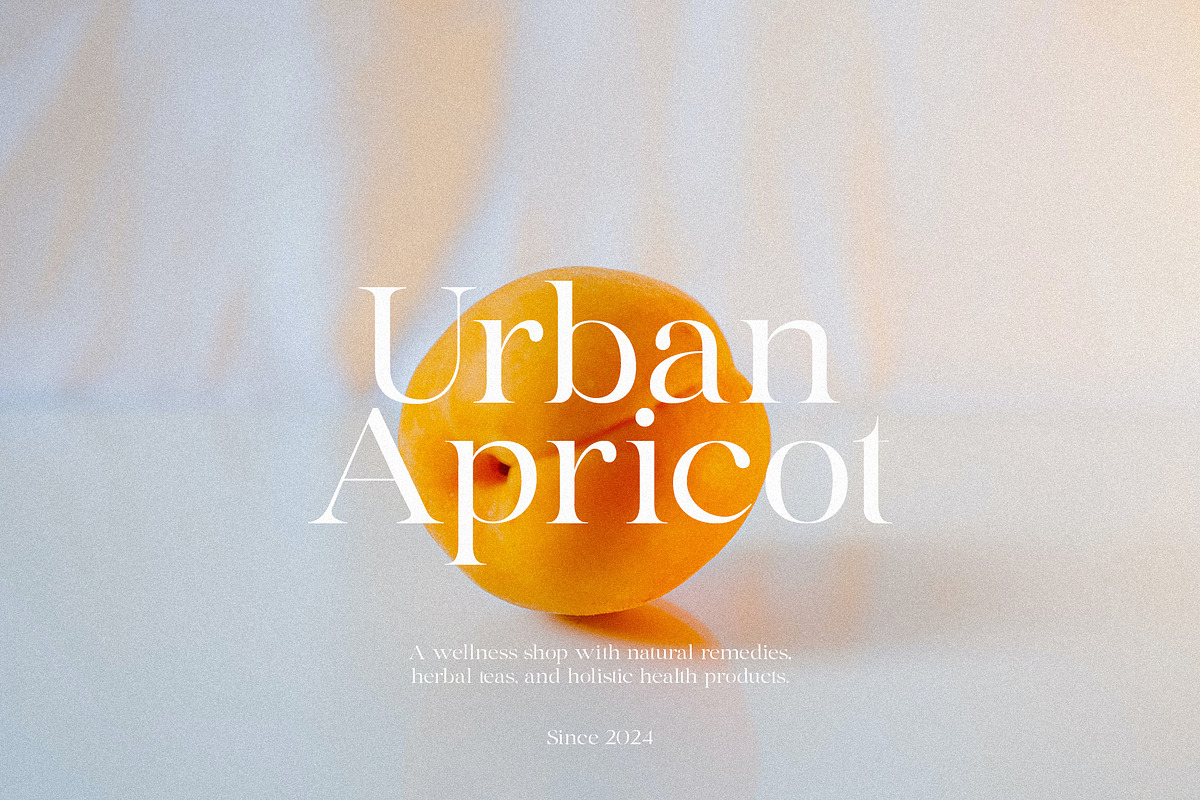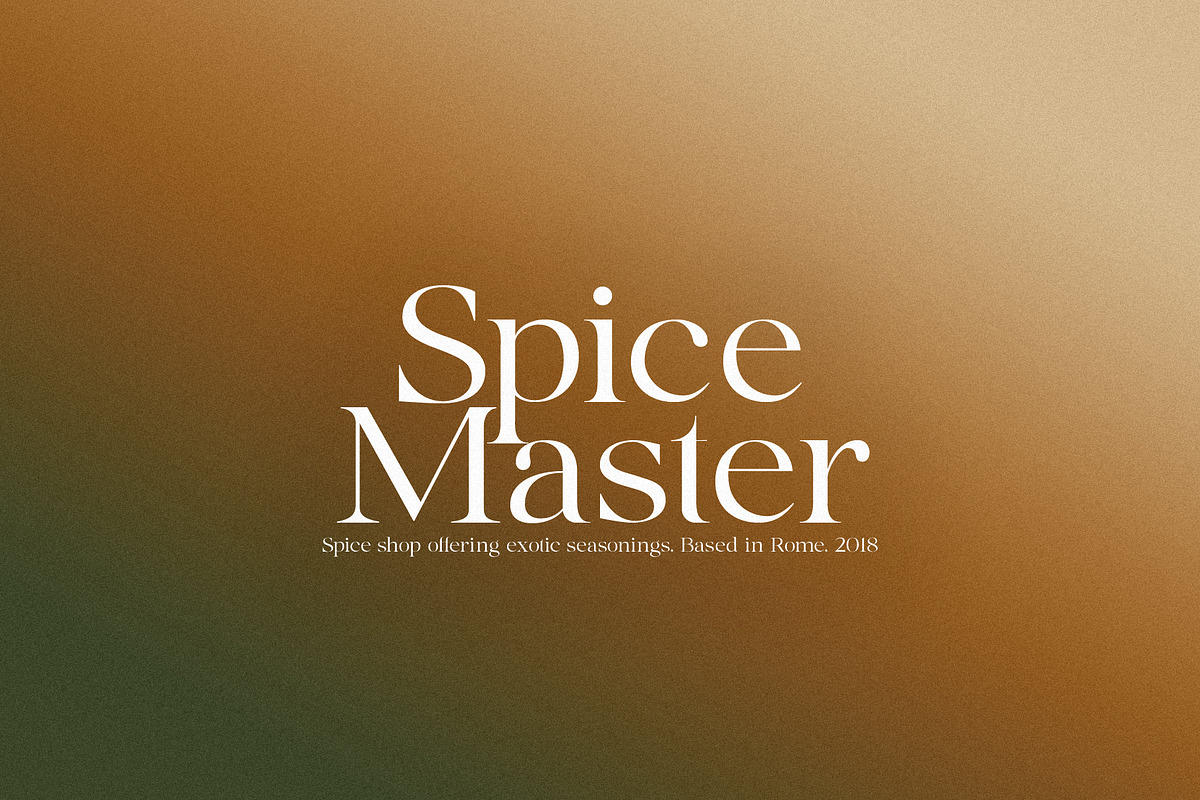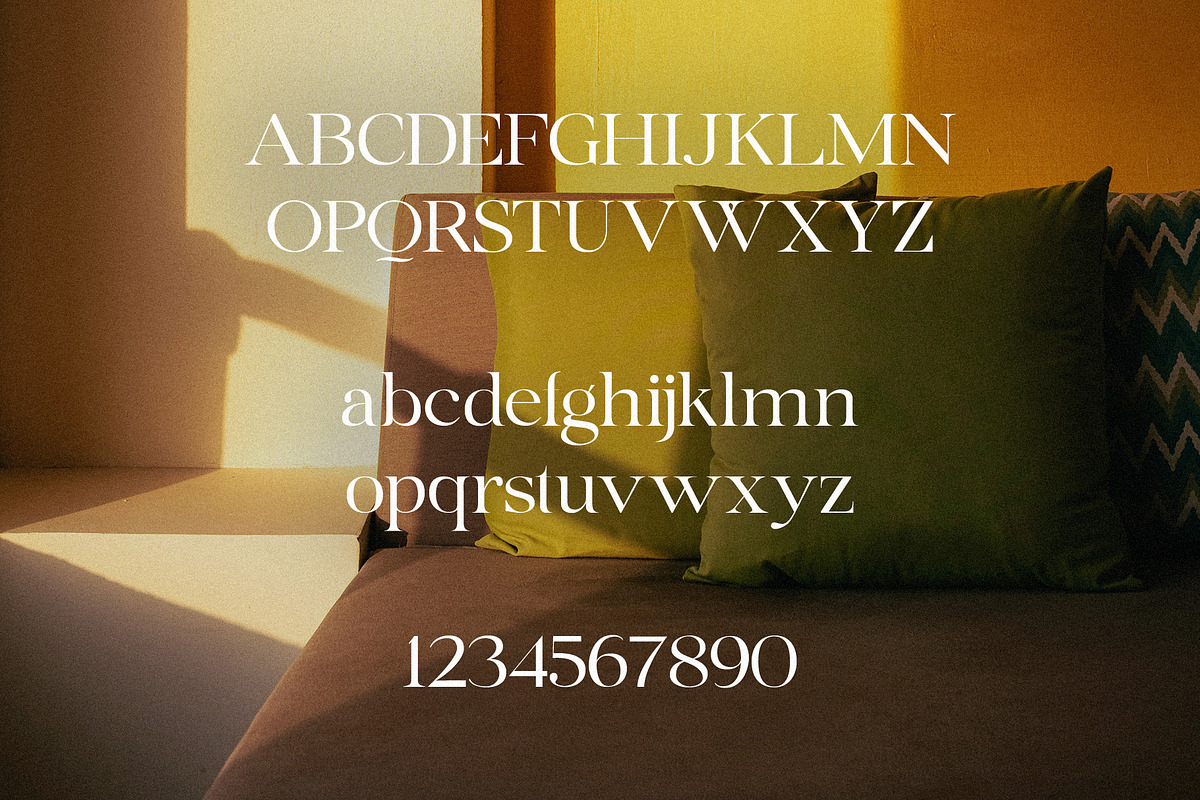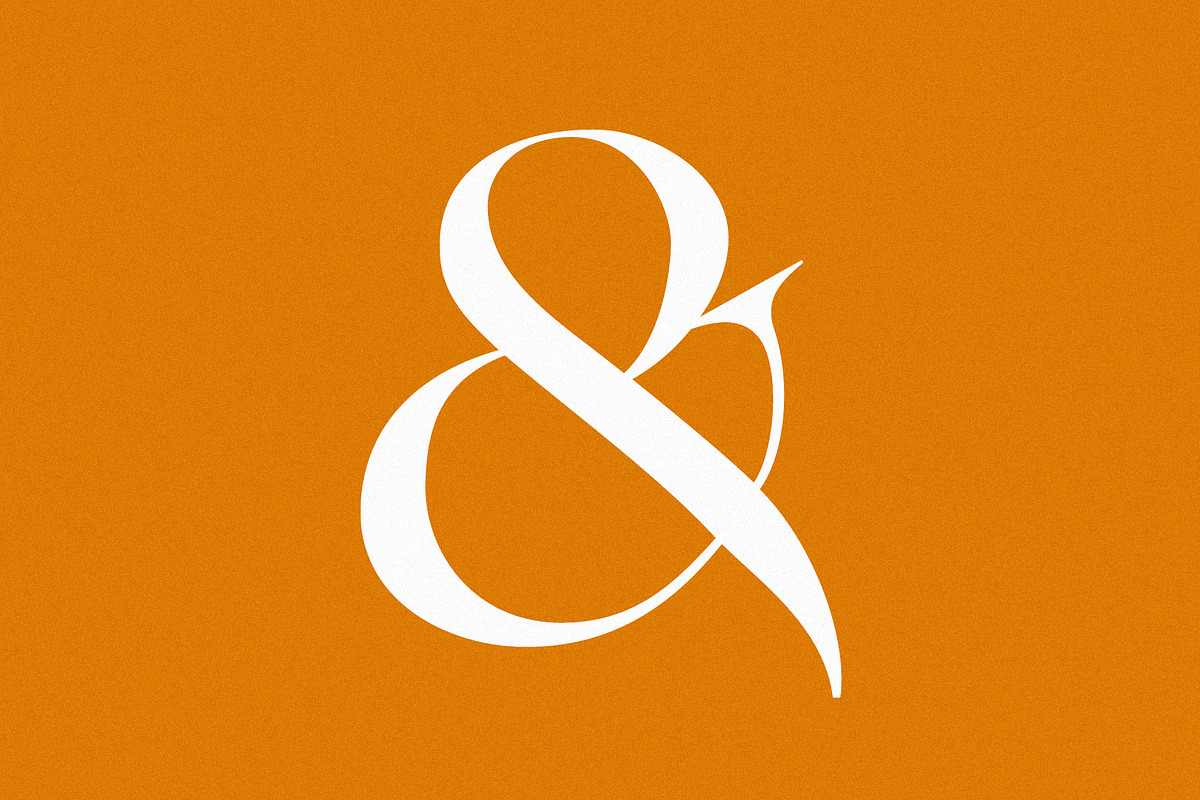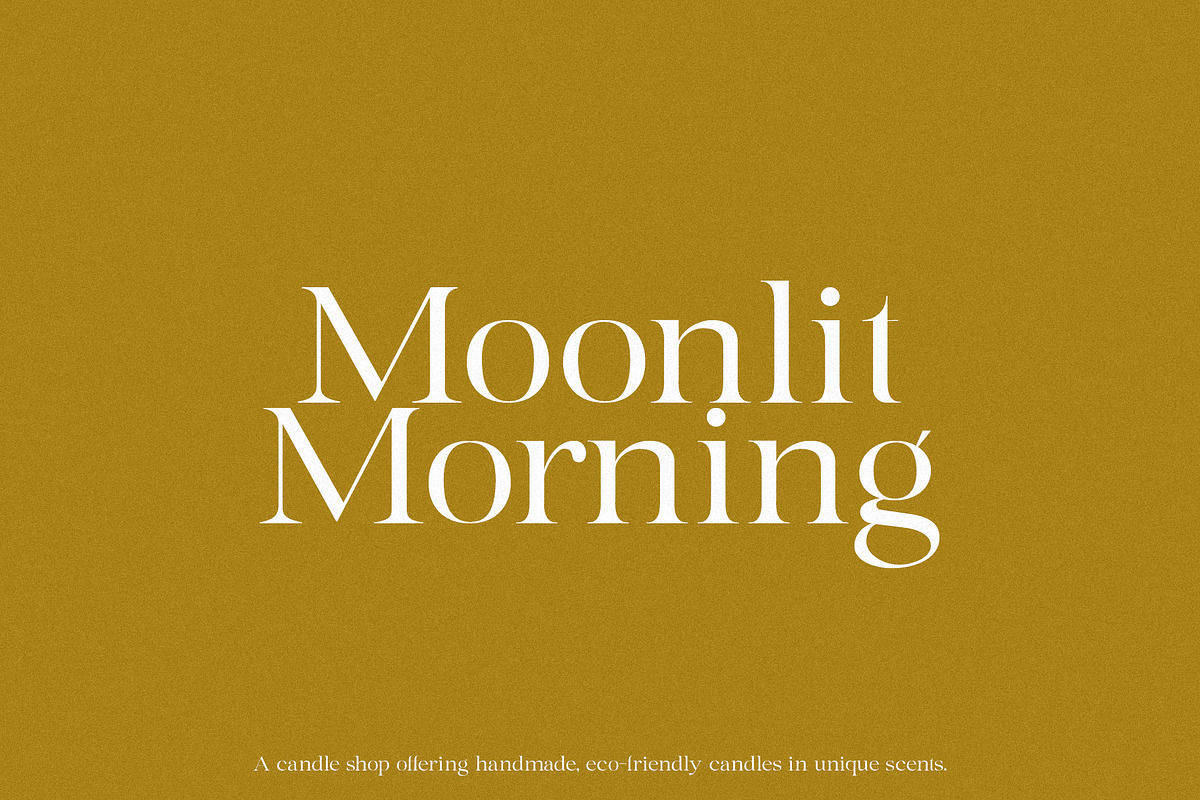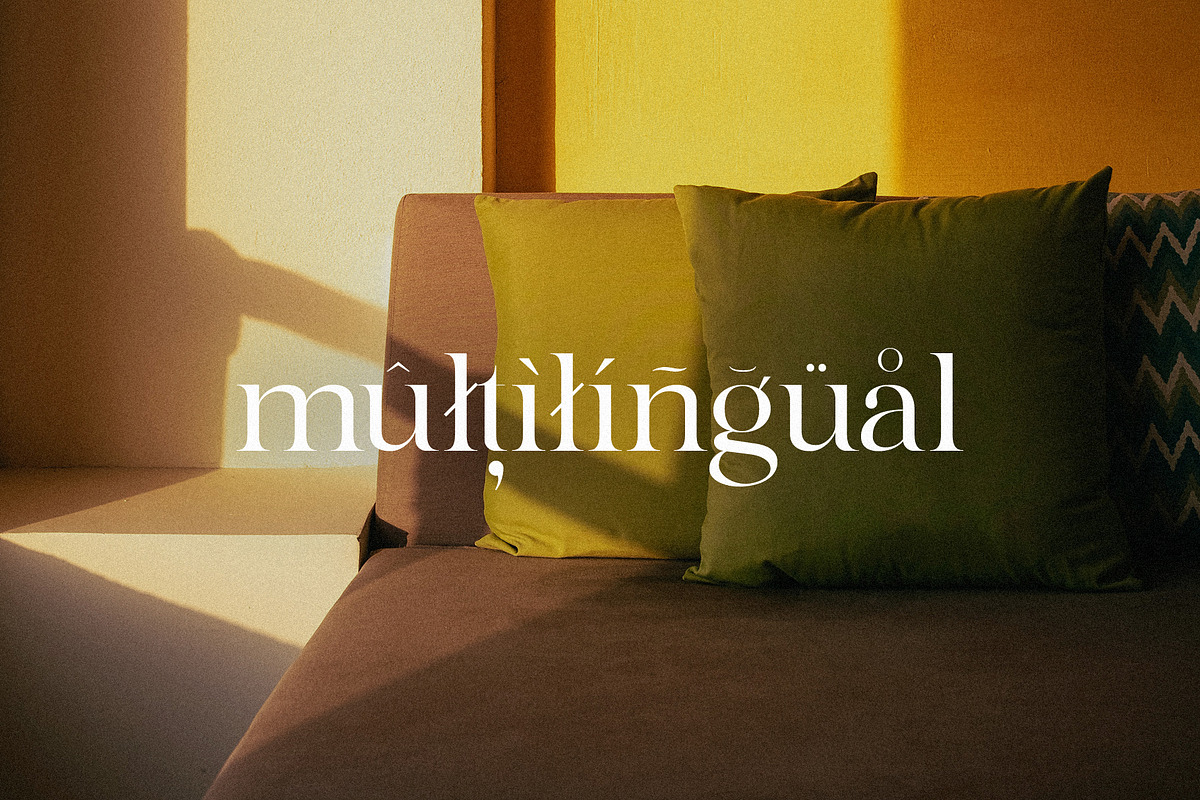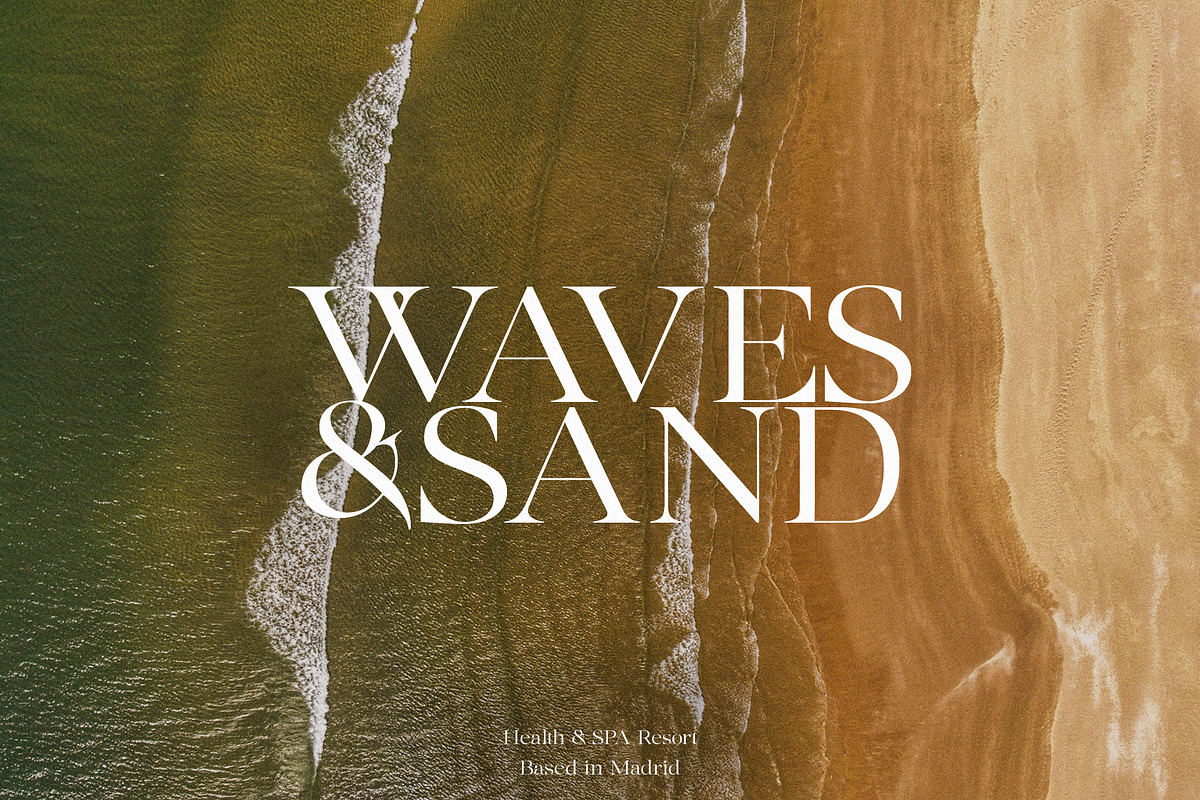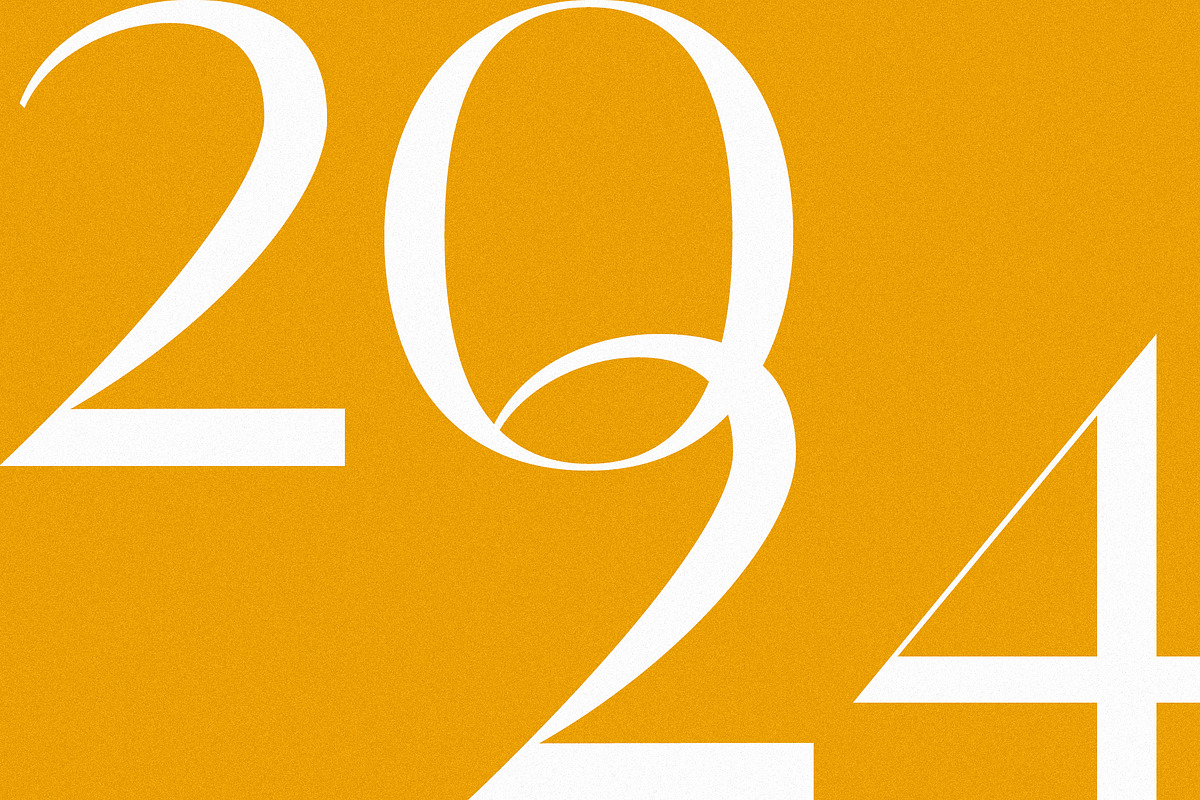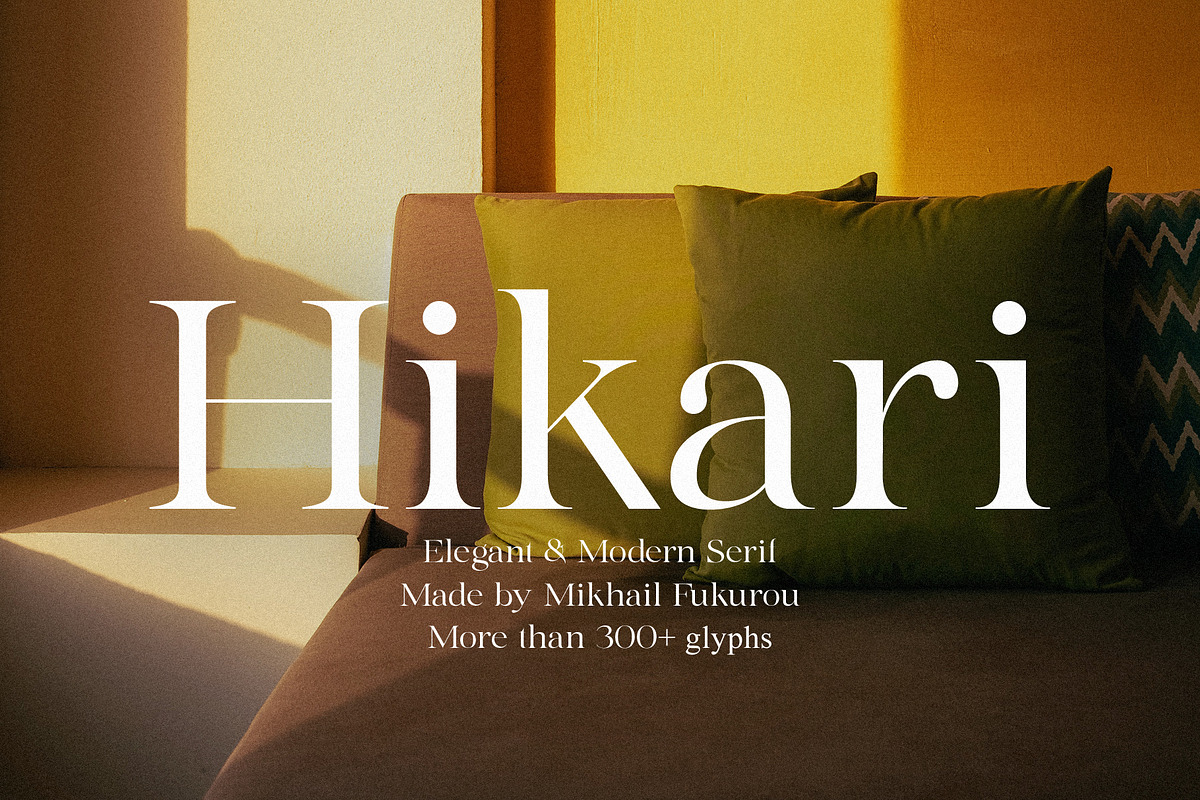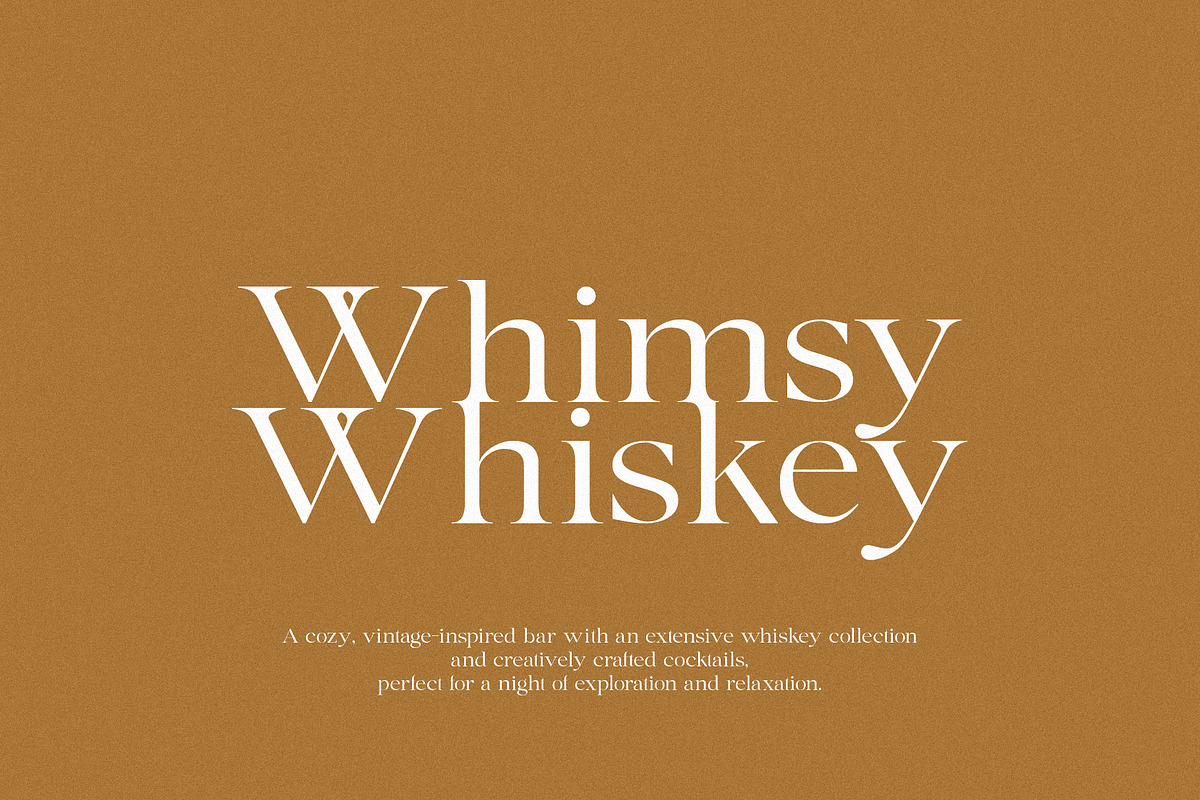
Hikari - Elegant & Modern Serif
Hikari 光 means light in japanese.
Hikari is a refined serif typeface that blends elegance with contemporary design. Featuring clean lines, stylish curves, and high contrast between thick and thin strokes, it's perfect for branding, editorial design, logos, and high-end fashion visuals. With its graceful presence and timeless feel, Hikari adds a sophisticated touch to any project.
Hikari features:
- Letters
- More than 250+ glyphs